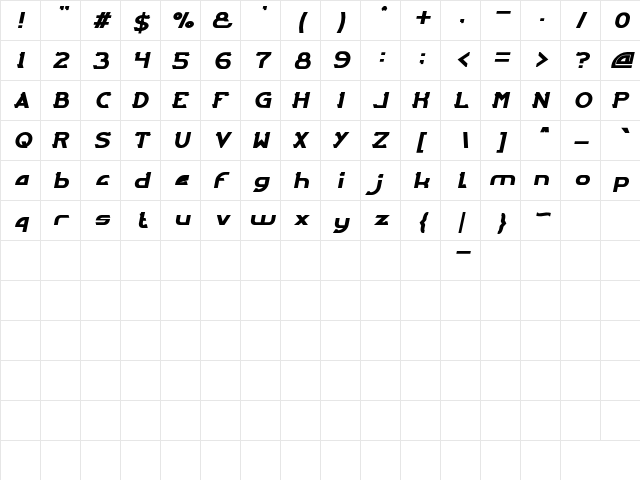
ARCADE Italic
Design Context for ARCADE Typeface
ARCADE offers clean, dependable letterforms without strong stylistic allegiance, making it a practical choice for designers who need flexibility. Its italic angle brings a sense of urgency and motion to the letterforms.
Pro Tip: Use ARCADE for emphasis, pull quotes, and subheadings where its slanted energy can add rhythm to the layout.